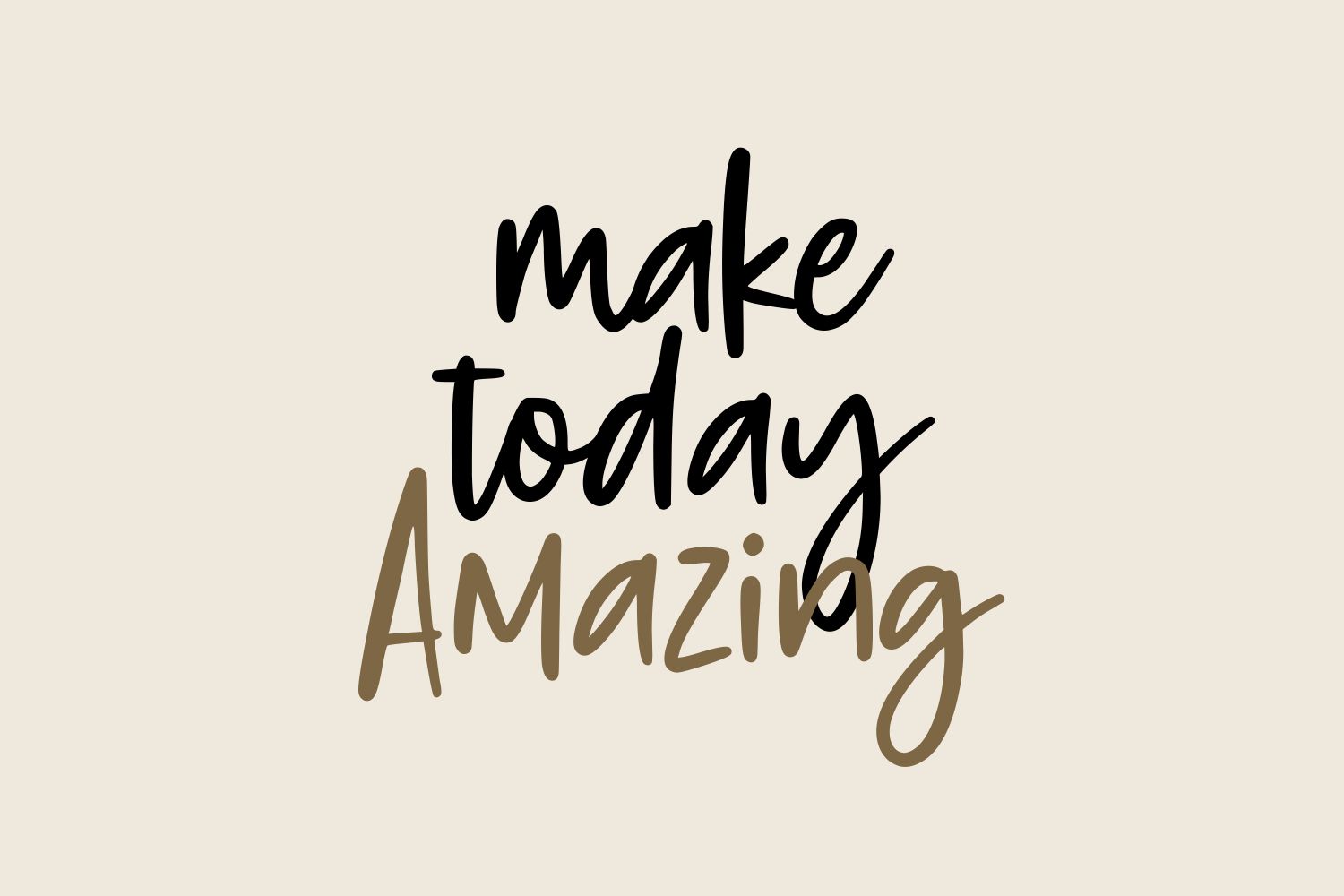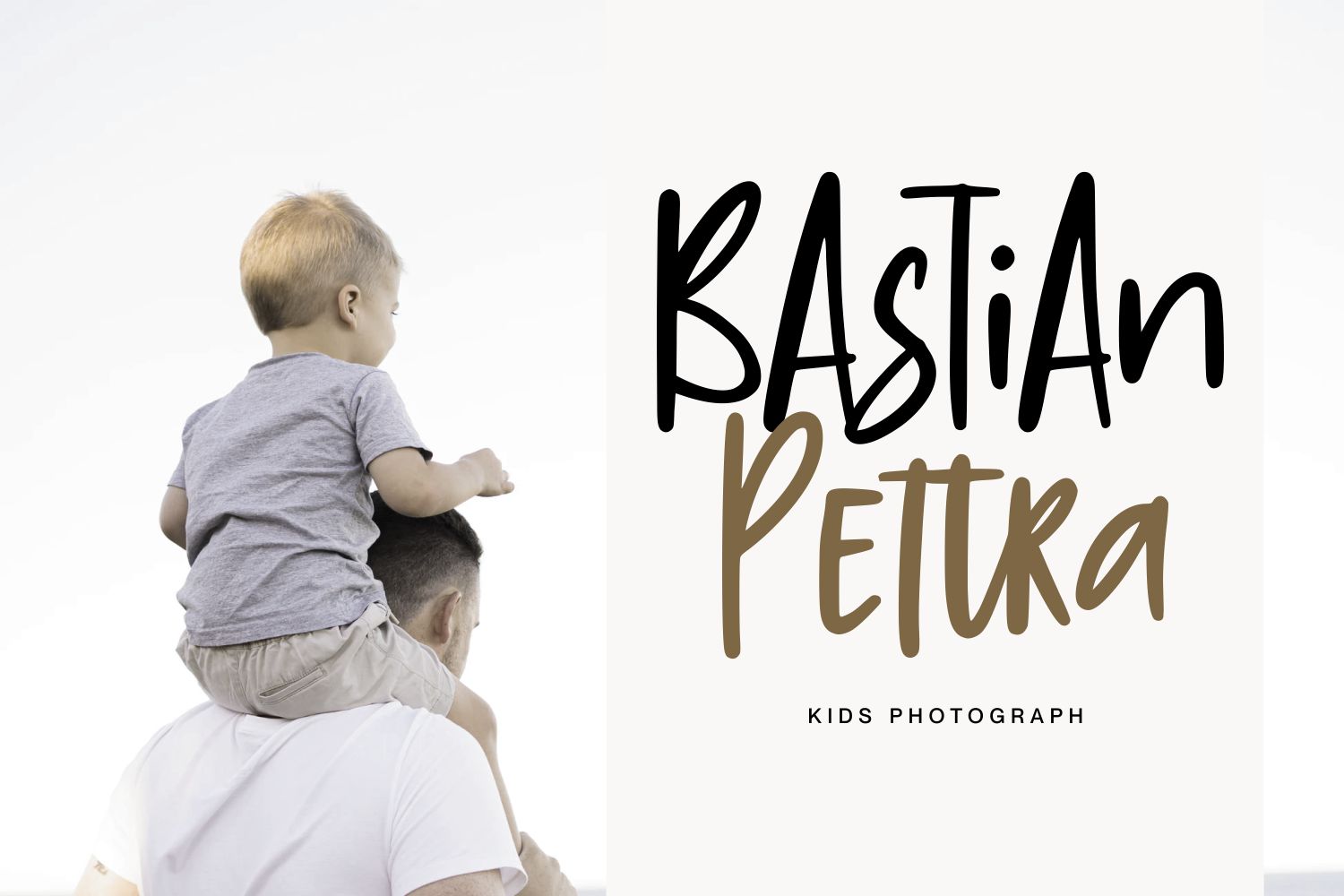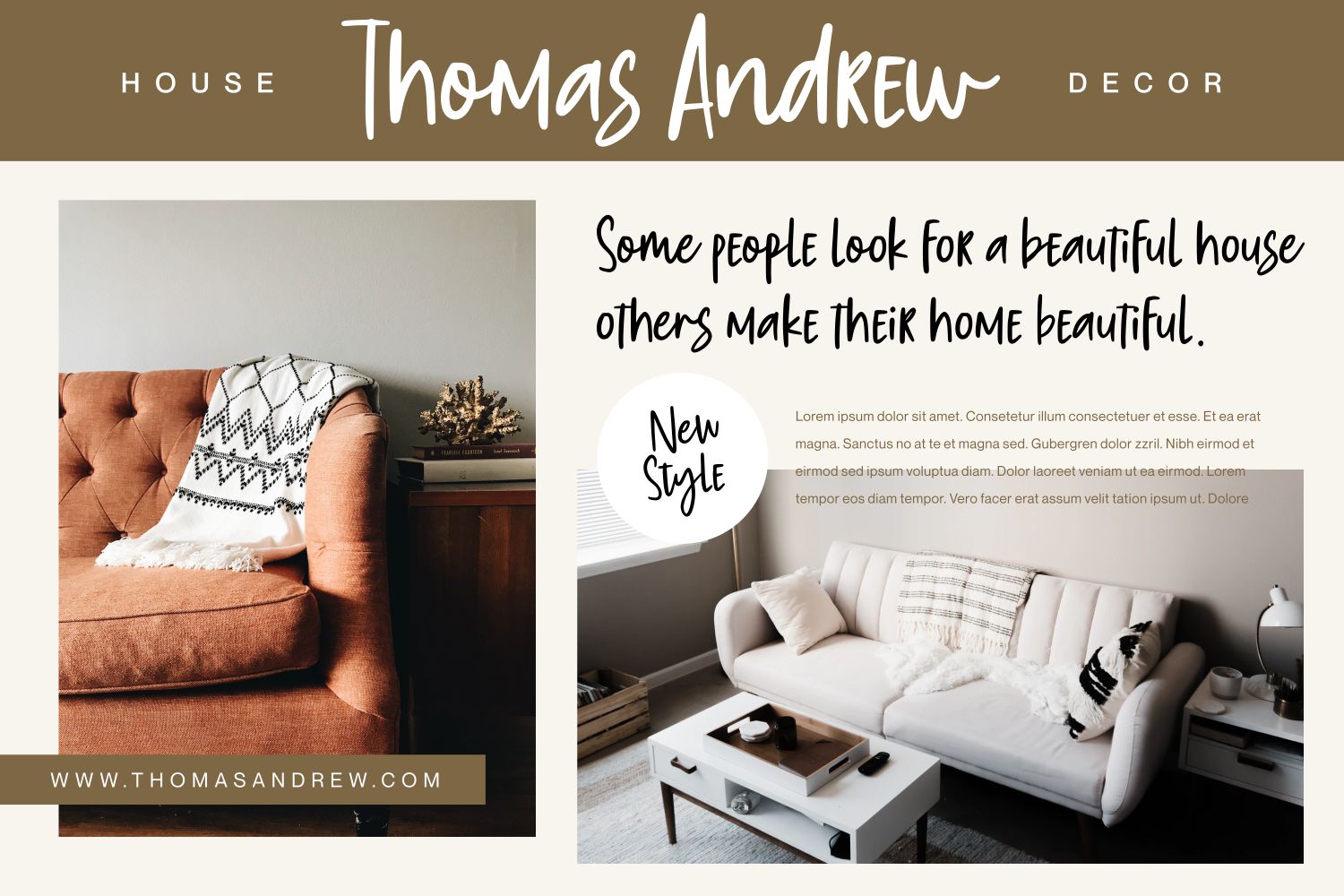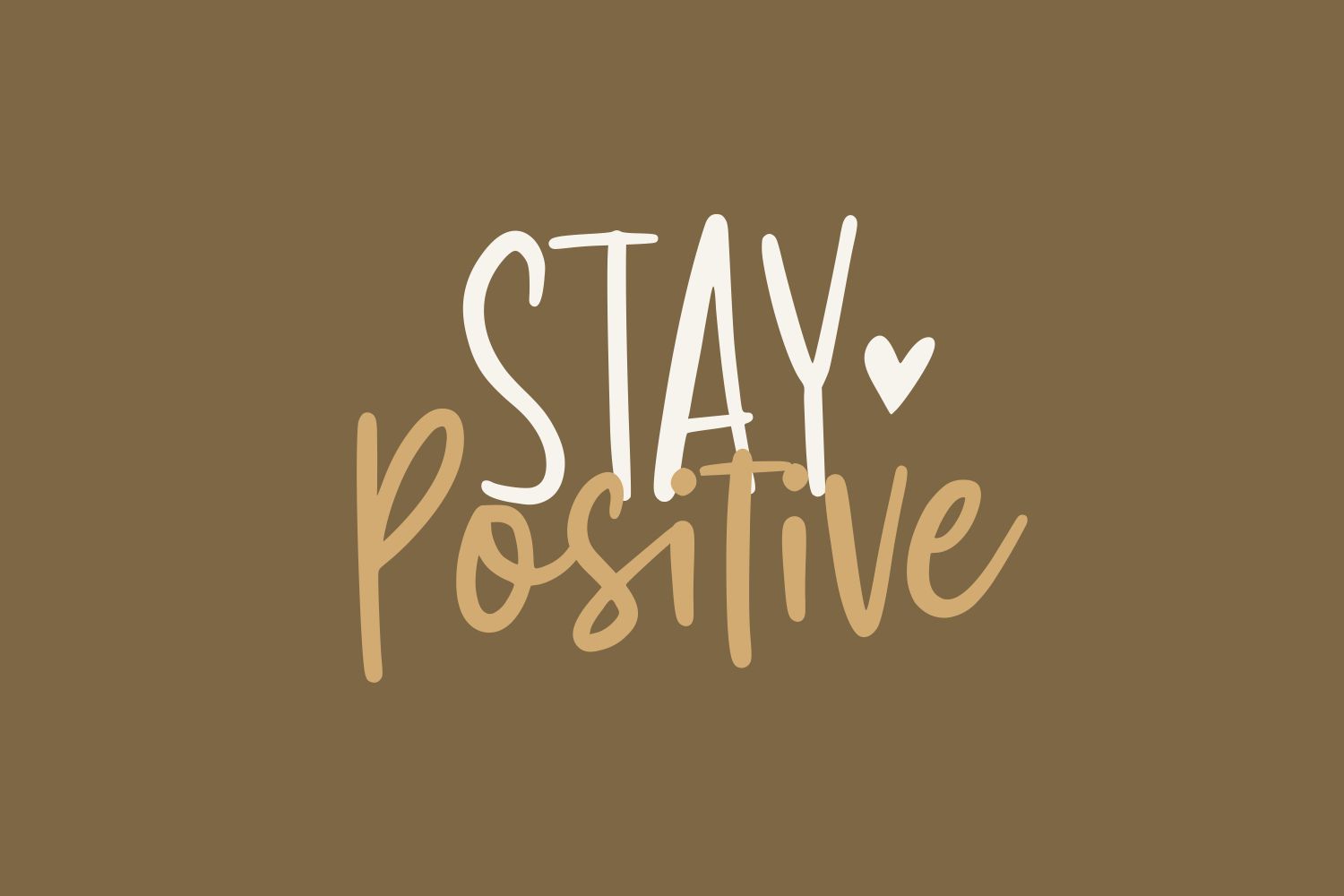
Chunkey Hurley Handwritten Font
This is a laid-back and friendly handwritten font. It is the best choice for creating eye catching logos, branding and quotes. Every letter has a unique and beautiful touch, which will make your design come alive!